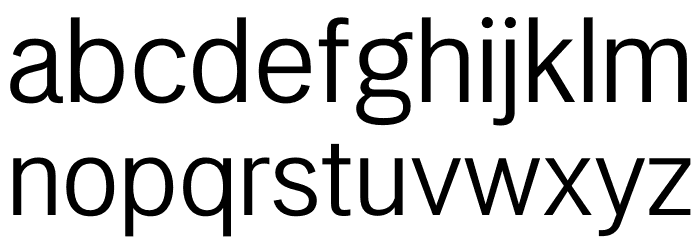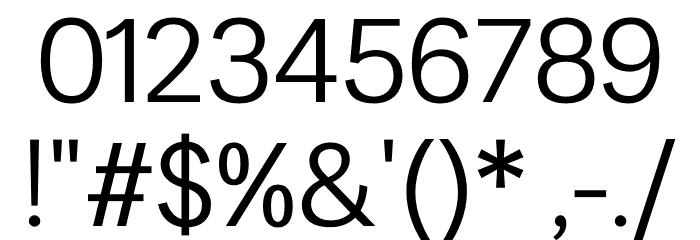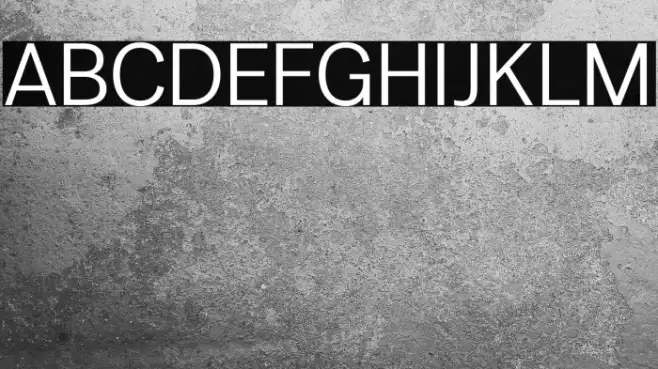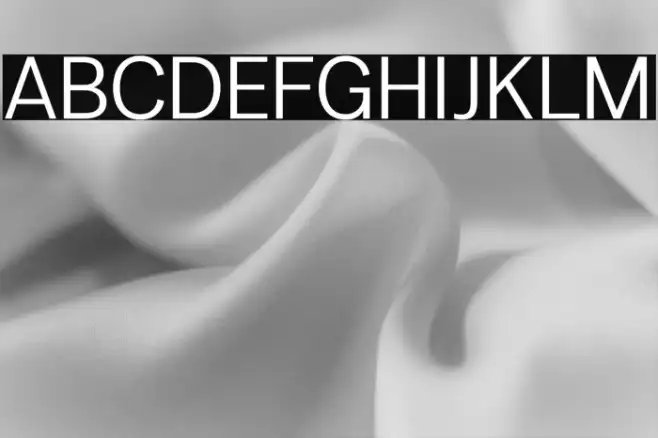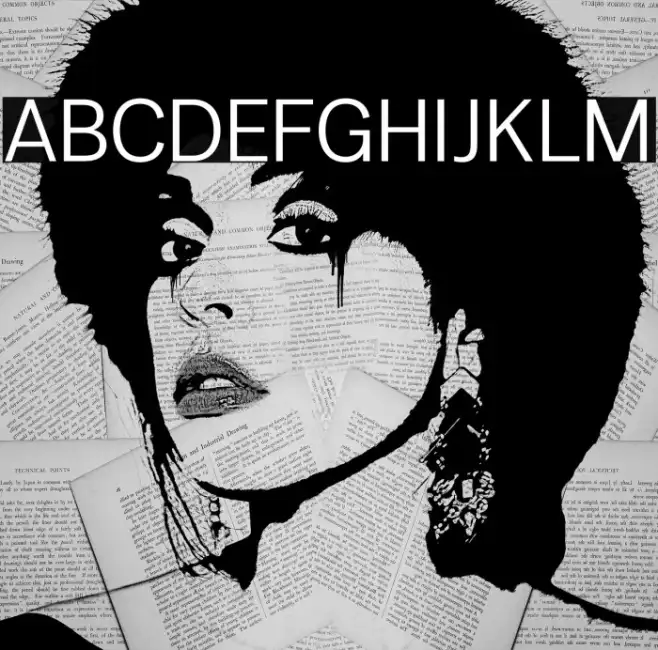
LT Amber Font
This font features a clean and modern sans-serif design, characterized by its simplicity and readability. The characters are well-proportioned with a consistent stroke width, giving it a balanced and harmonious appearance. The uppercase letters are bold and assertive, while the lowercase letters maintain a friendly and approachable feel. The numerals are clear and distinct, making them easy to read. Special characters are included, providing versatility for various applications. Overall, this font is suitable for both digital and print media, offering a professional yet contemporary look.
A modern, clean sans-serif font with balanced proportions and excellent readability.
- Font: LT Amber
- Proposed Projects: Ideal for branding, web design, advertising, and editorial use, where clarity and modernity are essential.